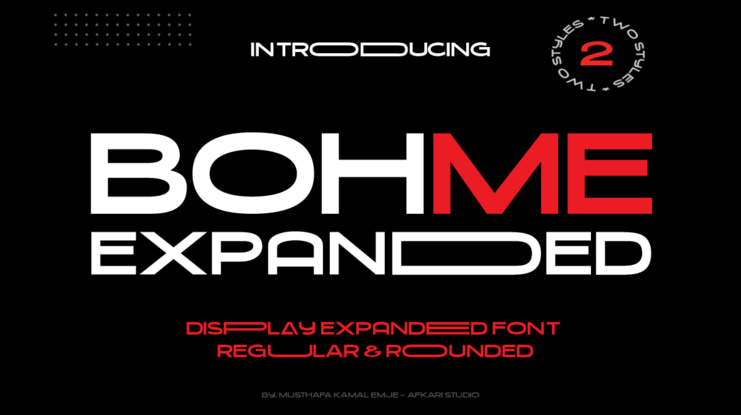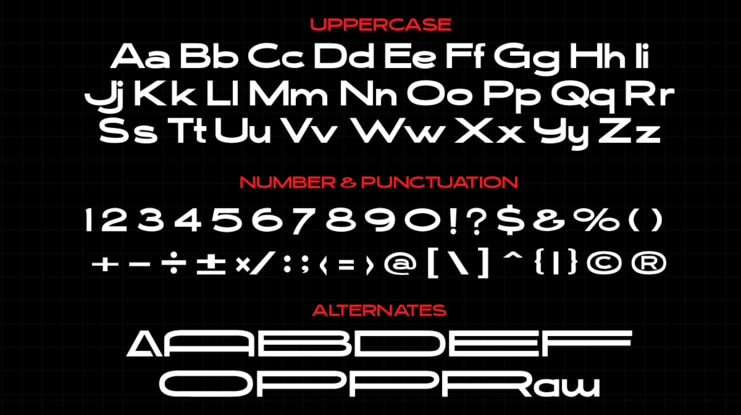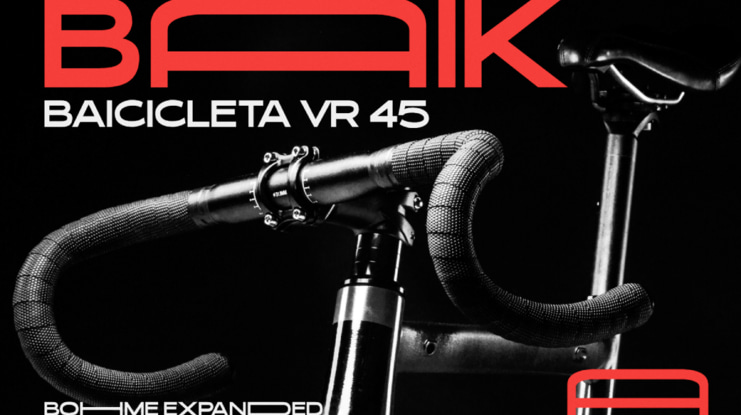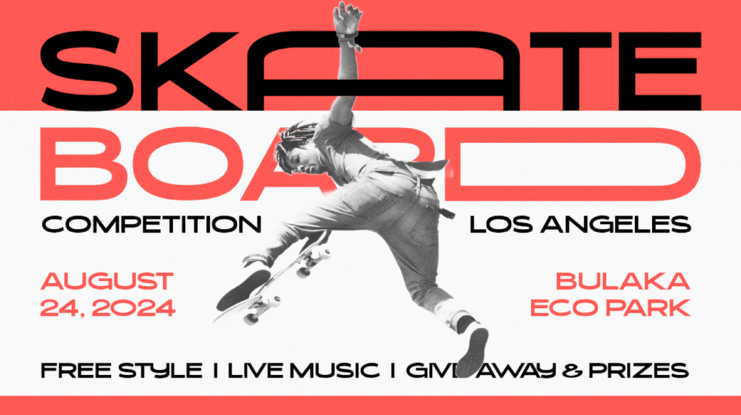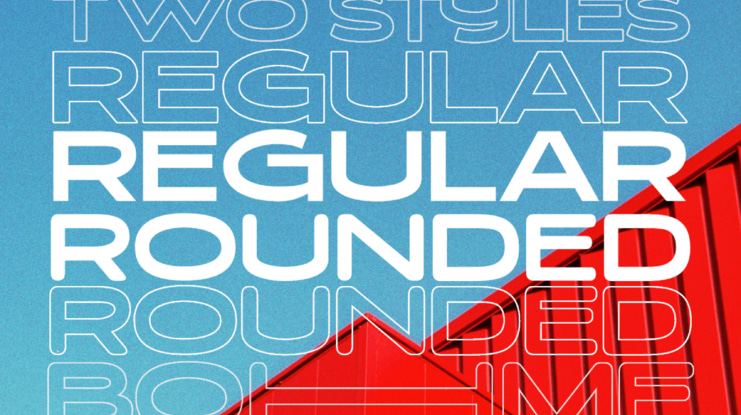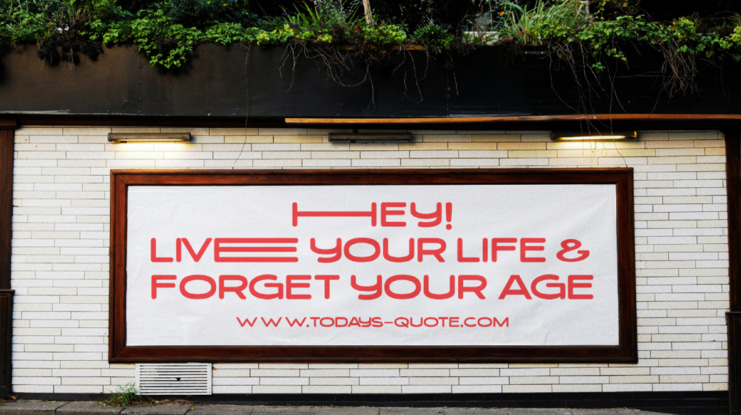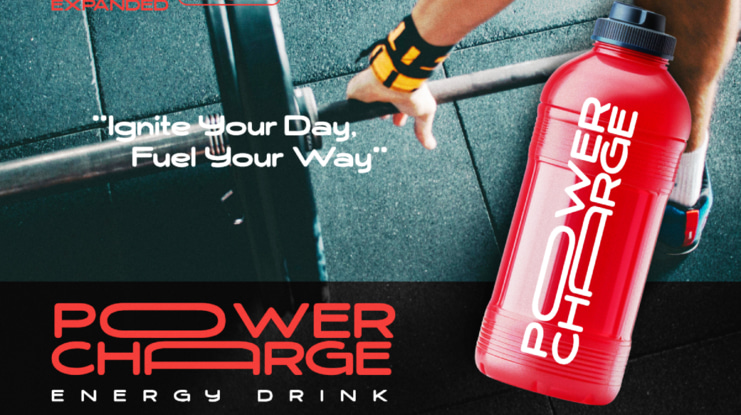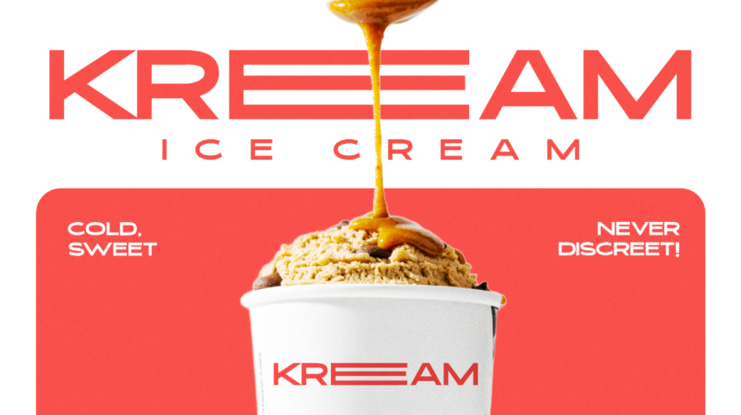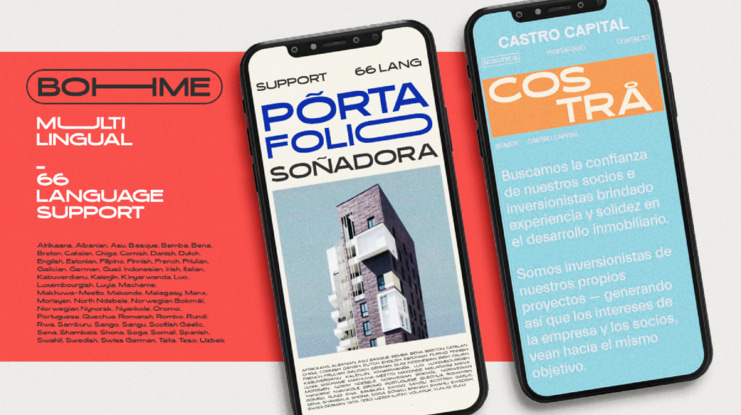
Bohme Font Family
Designer: Musthafa Kamal Emje - Afkari Studio
Introducing Bohme Expanded, a dynamic and modern Display Sans Serif Font that takes typography to new heights. This font, characterized by its bold and expansive design, is crafted for those seeking a typeface that seamlessly combines contemporary aesthetics with a touch of sophistication.